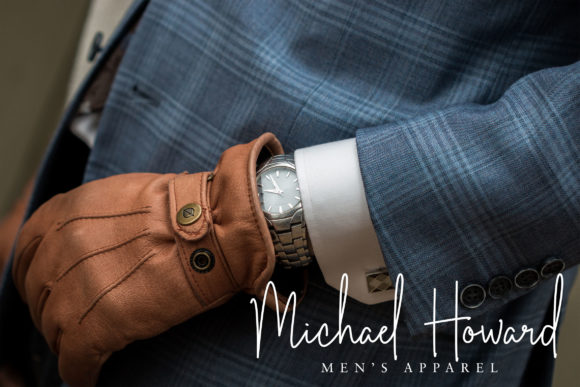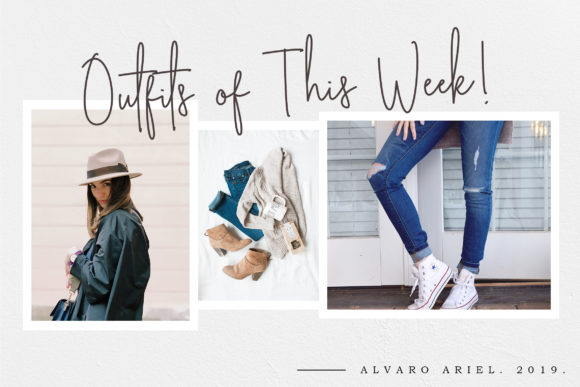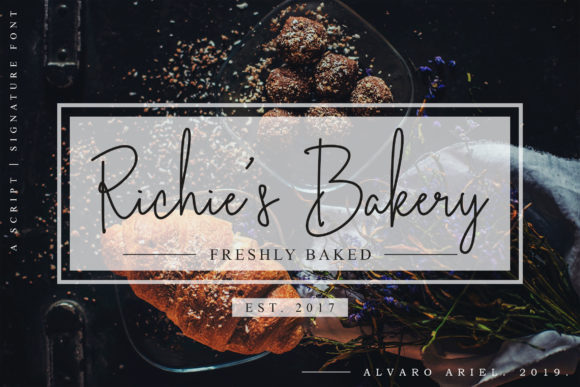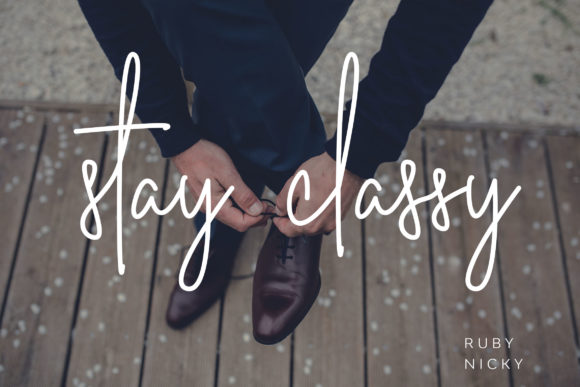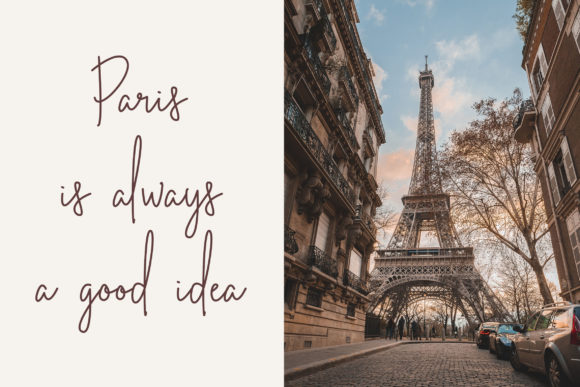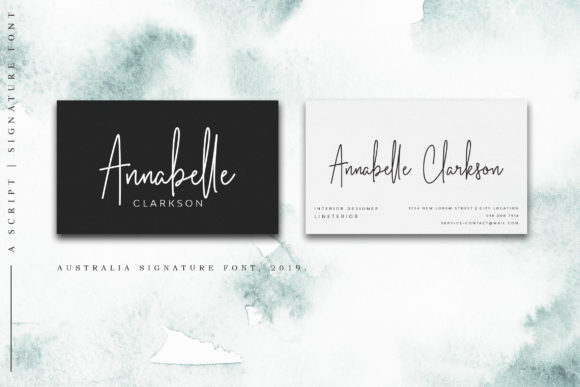
The Birth of a Bold Idea: Unleashing the Power of Australia Font
Have you ever sat at your desk, staring at a blank page, waiting for that spark of creativity to strike? It’s a feeling many designers know all too well. For me, it was a late night, fueled by coffee and a determination to bring a new project to life. As I began to brainstorm, I stumbled upon a font that would change everything: Australia Font.
This unique and strong handwritten font exudes a bold vibe that’s hard to resist. Its authentic feel is perfect for designers looking to add a touch of personality to their work. Whether you’re creating a brand identity or crafting a social media post, Australia Font is the perfect companion to help you convey your message with confidence. Its versatility and charm make it a valuable asset for designers, and I’m excited to share its story with you.
Australia Font Key Features
- Unique Characteristics: The Australia Font features a unique, modern design with clean lines and a neutral color palette, making it suitable for a wide range of applications, from corporate branding to editorial design.
- Font Style: The font is available in multiple styles, including Regular, Italic, Bold, and Bold Italic, allowing designers to create a range of visual effects and emphasis.
Design Review: Australia Font
First off, I think Australia Font has some great qualities that set it apart. ✨ The font’s unique letterforms and quirky charm make it perfect for projects that need a bit of character. It’s also a great choice for branding and marketing materials where you want to stand out from the crowd.
- Quirky and charming letterforms that add character to projects
- Perfect for branding and marketing materials
- A great choice for designers who want to add a bit of personality to their work
However, I do think there are some limitations to consider. ⚠️ The font’s irregular letterforms can sometimes make it difficult to read, especially in smaller sizes. Additionally, the font’s quirky charm can sometimes feel overwhelming or distracting, which may not be suitable for all projects.
- Irregular letterforms can make it difficult to read in smaller sizes
- Quirky charm can feel overwhelming or distracting in some projects
Overall, I think Australia Font is a great choice for designers who want to add a bit of personality to their work. While it may not be suitable for all projects, it’s definitely worth considering for the right kind of job.
The Australia Font is commonly used in:
1. Branding and identity projects, where its unique and distinctive style can help to create a strong brand image.
2. Packaging design, where the font’s playful and modern look can add a touch of sophistication and elegance.
3. Marketing materials, such as brochures and flyers, where the font’s versatility and readability make it an ideal choice.